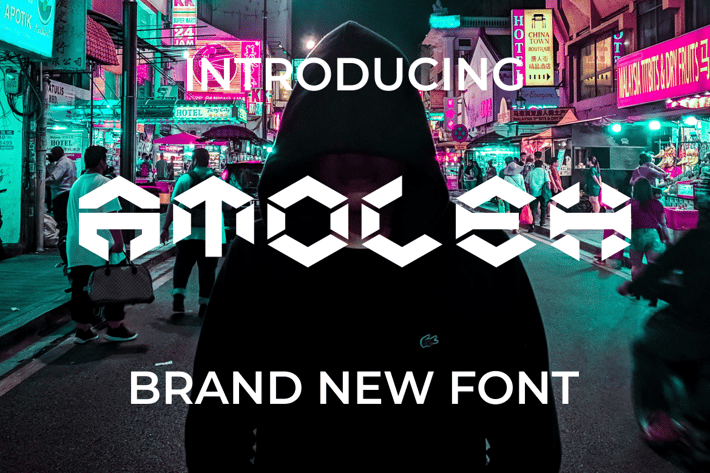
ATOLEH Font
Introducing our new product ATOLEH Font - Modern Font
ATOLEH Font - Modern Font is a bold and authentic display font. The font is suitable for any branding project like logo, t-shirt printing, esport, and many more. outstanding in a wide range of contexts.